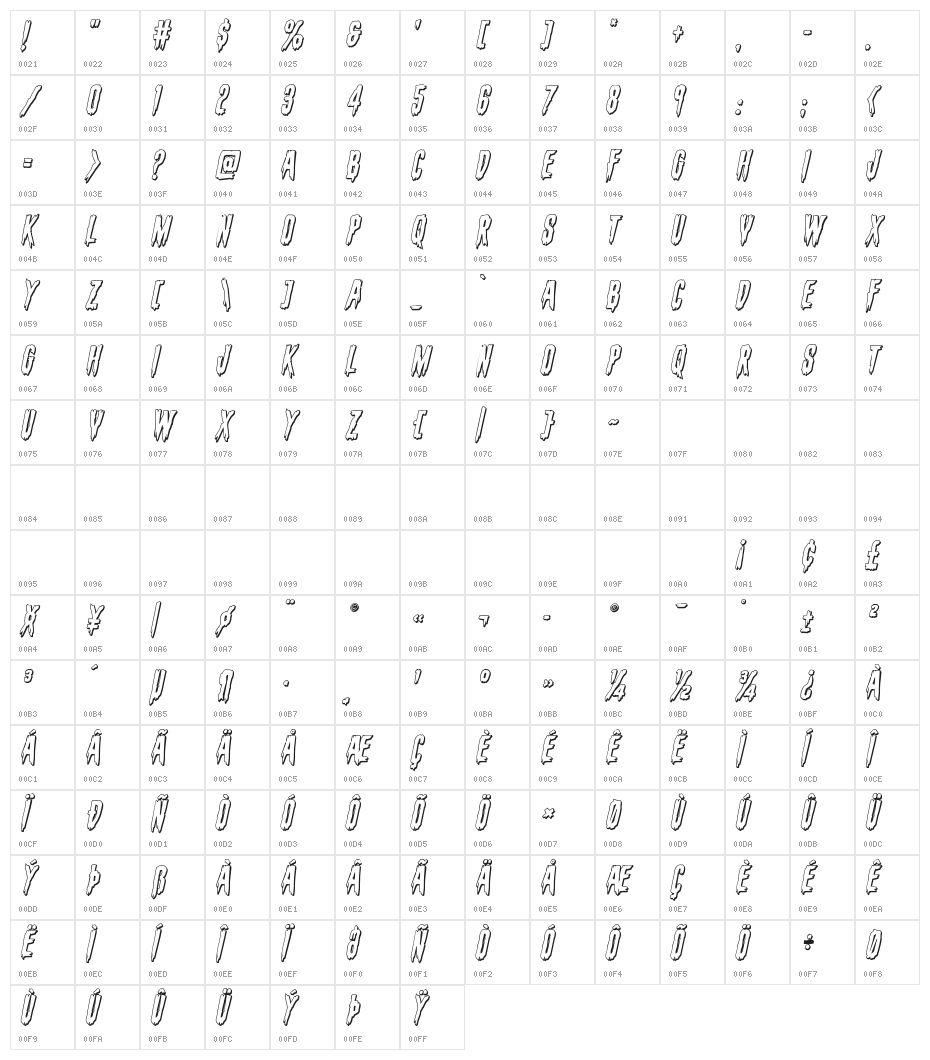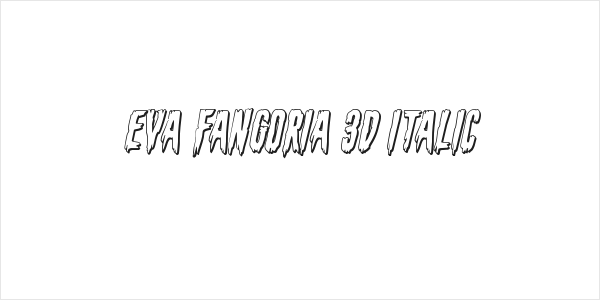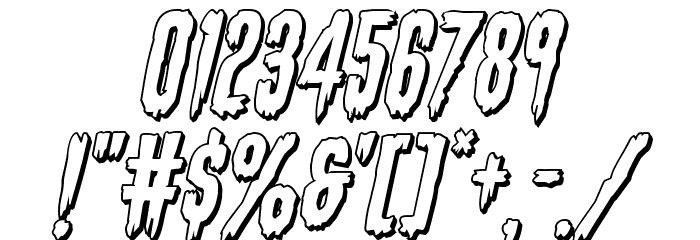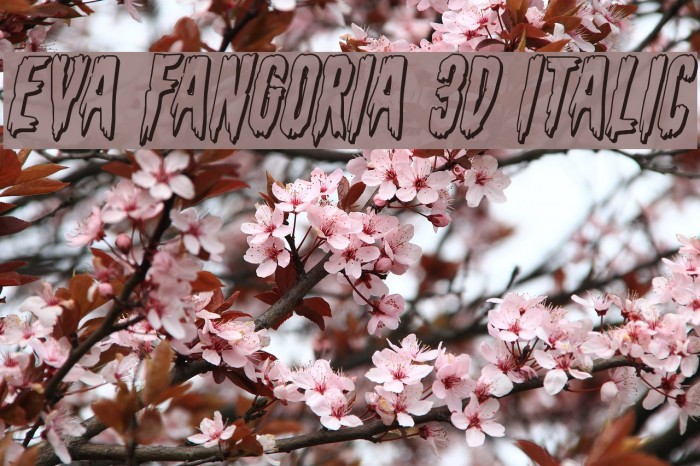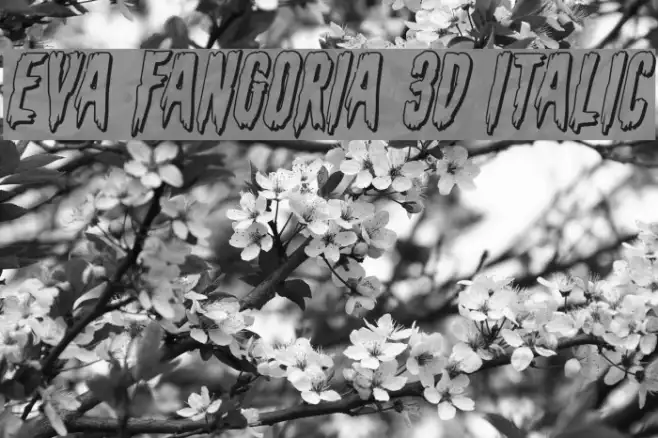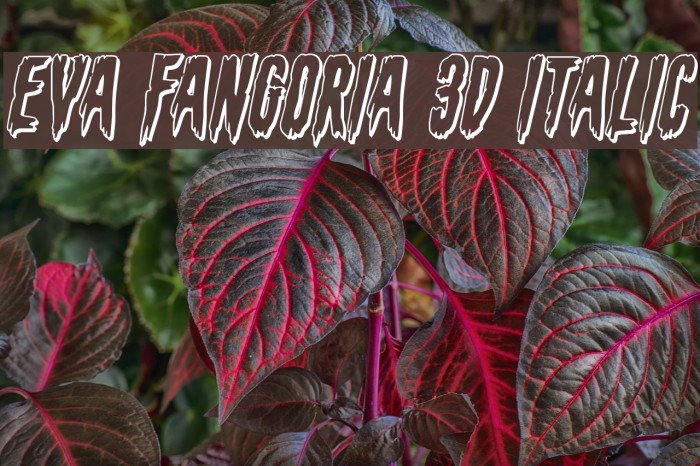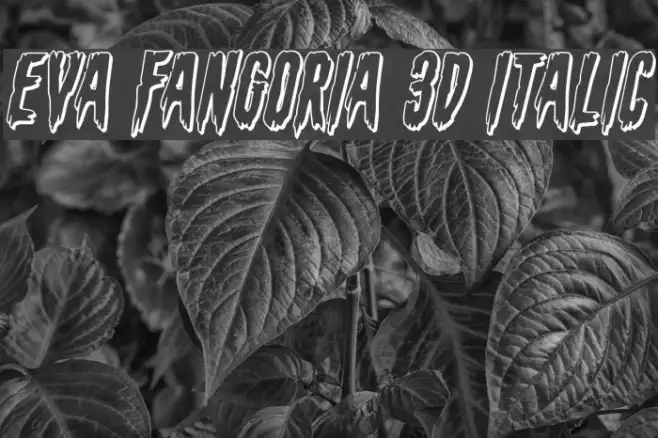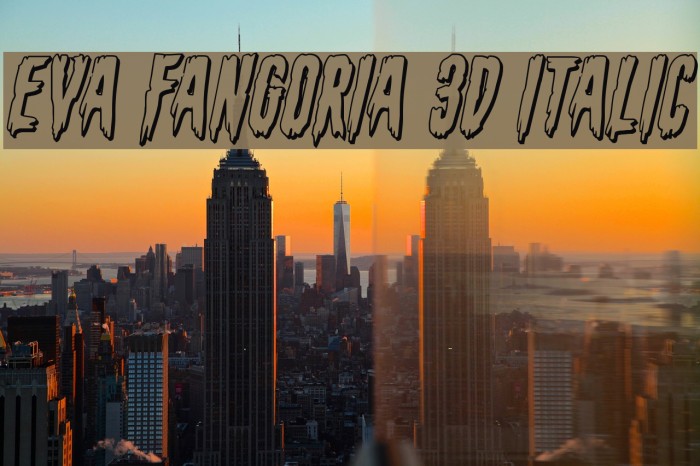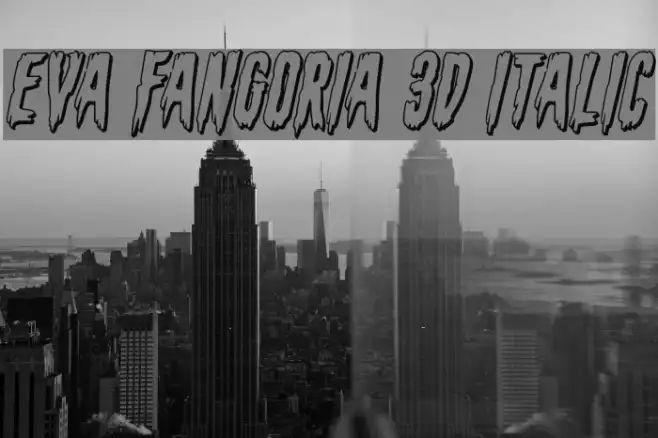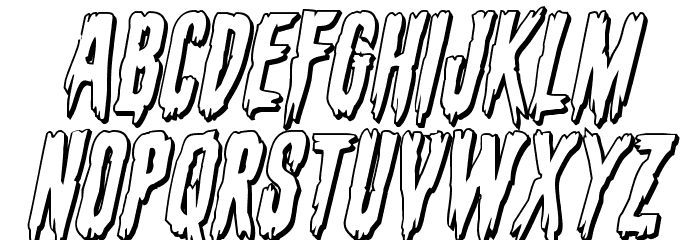
Eva Fangoria 3D Italic Font
Eva Fangoria 3D Italic Description
This font features a bold, jagged design with a 3D effect, giving it a dynamic and eye-catching appearance. The letters have a sharp, angular style that resembles dripping or melting, adding a dramatic flair. The italicized slant enhances the sense of movement and energy, making it ideal for attention-grabbing headlines or thematic designs. The uppercase and lowercase letters maintain a consistent style, while the numbers and special characters complement the overall aesthetic. The font's unique characteristics make it suitable for projects that require a bold and adventurous look.
| Proposed Projects | Ideal for horror-themed posters, Halloween invitations, edgy branding, or video game titles. |